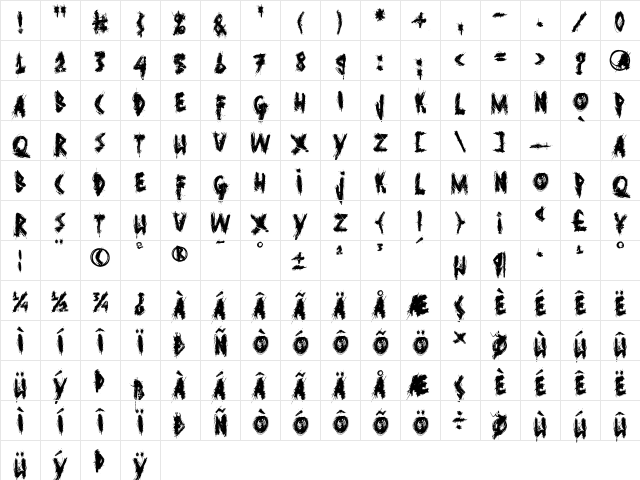
Ghost Reverie Regular
Foundry: David Kerkhoff
Designer: David Kerkhoff
Design Context for Ghost Reverie
Ghost Reverie is a composed and adaptable typeface that performs quietly and consistently across a wide range of design contexts.